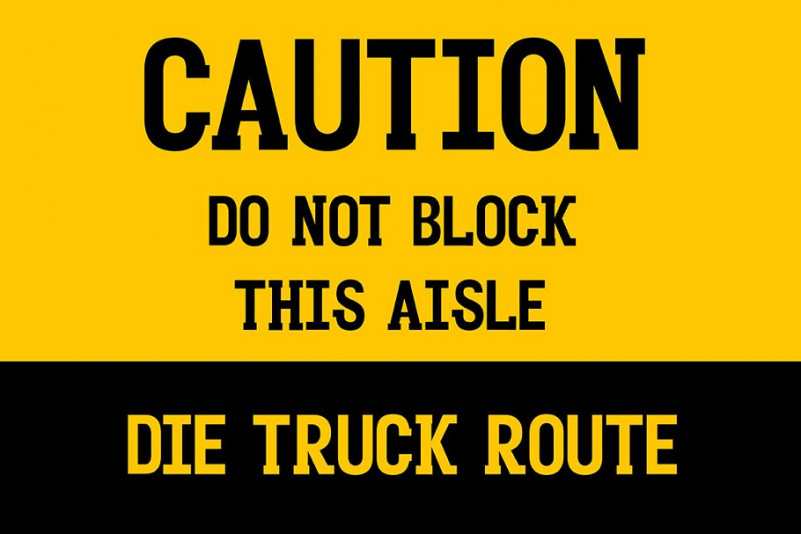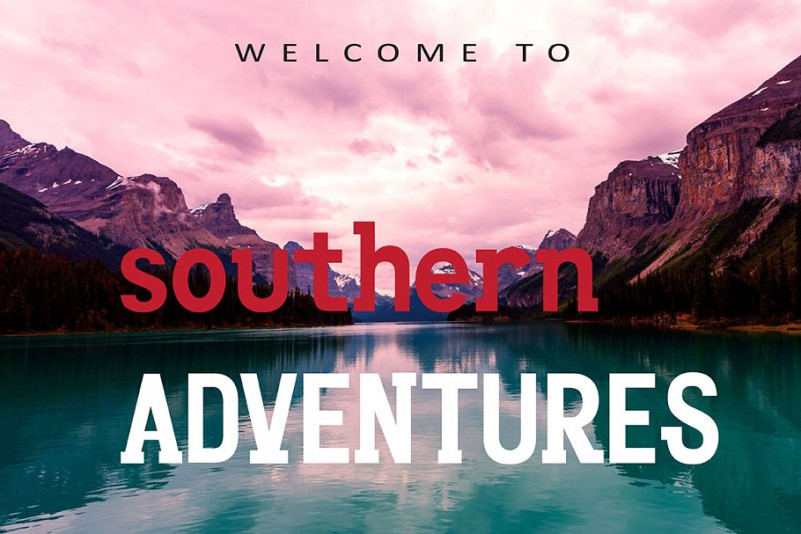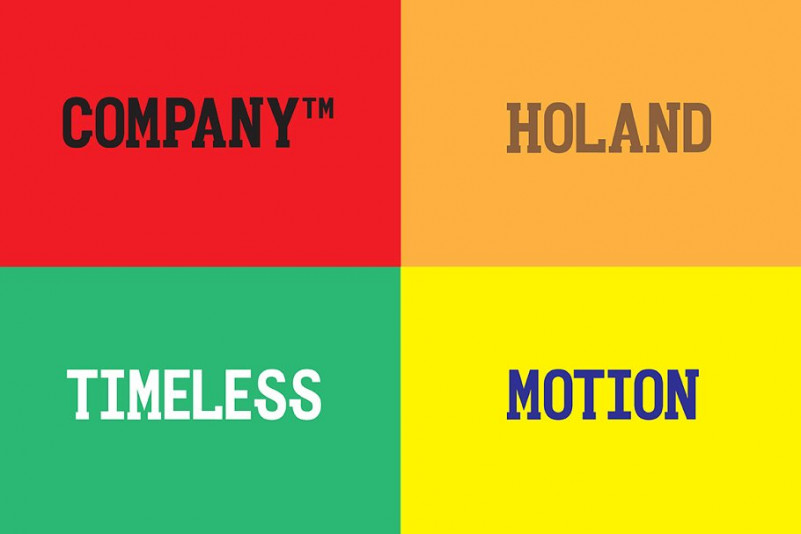
Clutsy Display Font
Clutsy Display Demo Font
Introducing the old school slab serif font “Clutsy Font” – a new slab serif font by aminmario. CLUTSY is a display typeface family font, that has a playful and modern chunky feel to it. Although designed to be used primarily as an all caps font and I have include a lowercase set if the situation requires it. Great for heading,logo,invitations,books,quotes,branding and anything that needs to stand out and make a statement etc. This is a bold only font and is very large by nature giving you ability to still read clearly even at the lowest of font sizes. And also support multilingual.